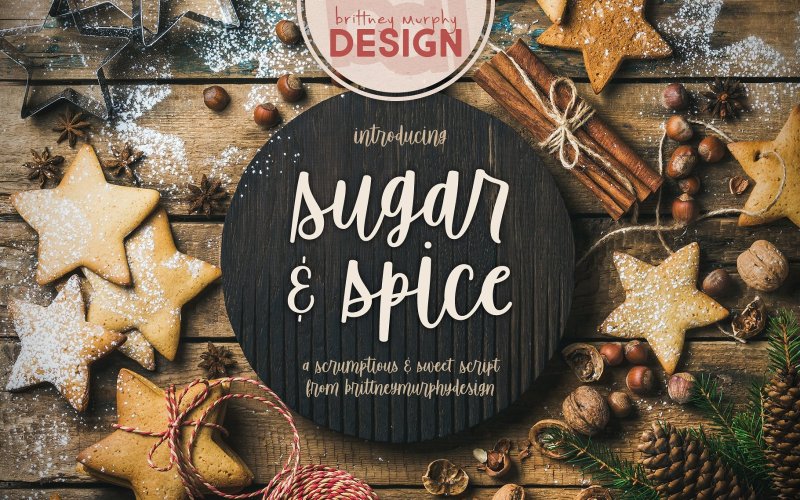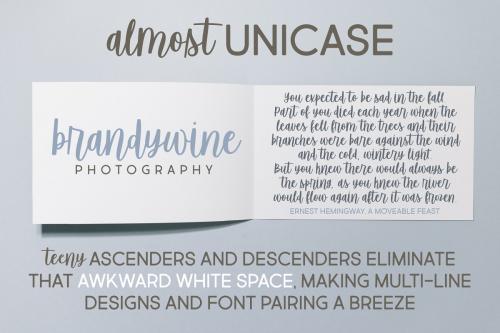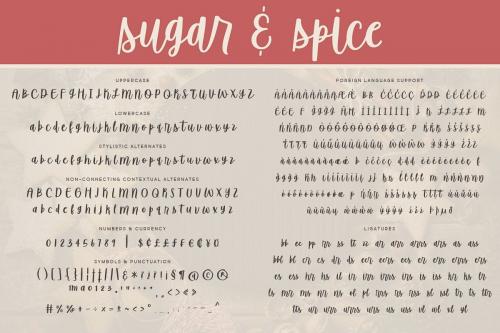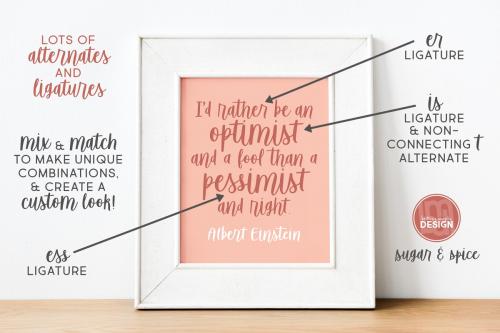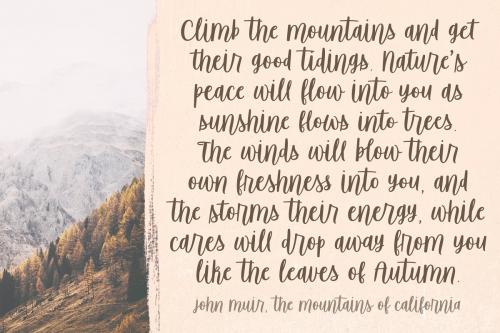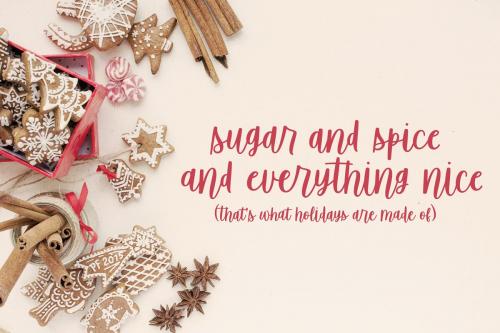
Sugar and Spice is a sweet & scrumptious script with short ascenders and descenders, so there’s less of that awkward white space between lines.
This makes it great for multi-line design and easy to pair with other fonts. Mix and match with alternates and ligatures to create a custom look!